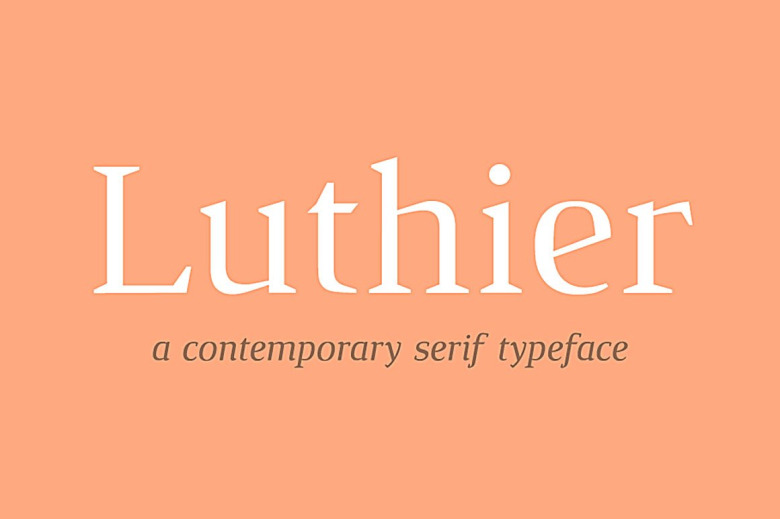
Luthier Font
Luthier Font is a high quality serif font that is designed by Adrià Gómez. A transitional font family with sharp serifs, high contrast, and four styles; regular, italic, bold, & bold italic. This font has very catchy look and elegant font specially for your graphic design, print or logo design projects.
Luthier Serif Font